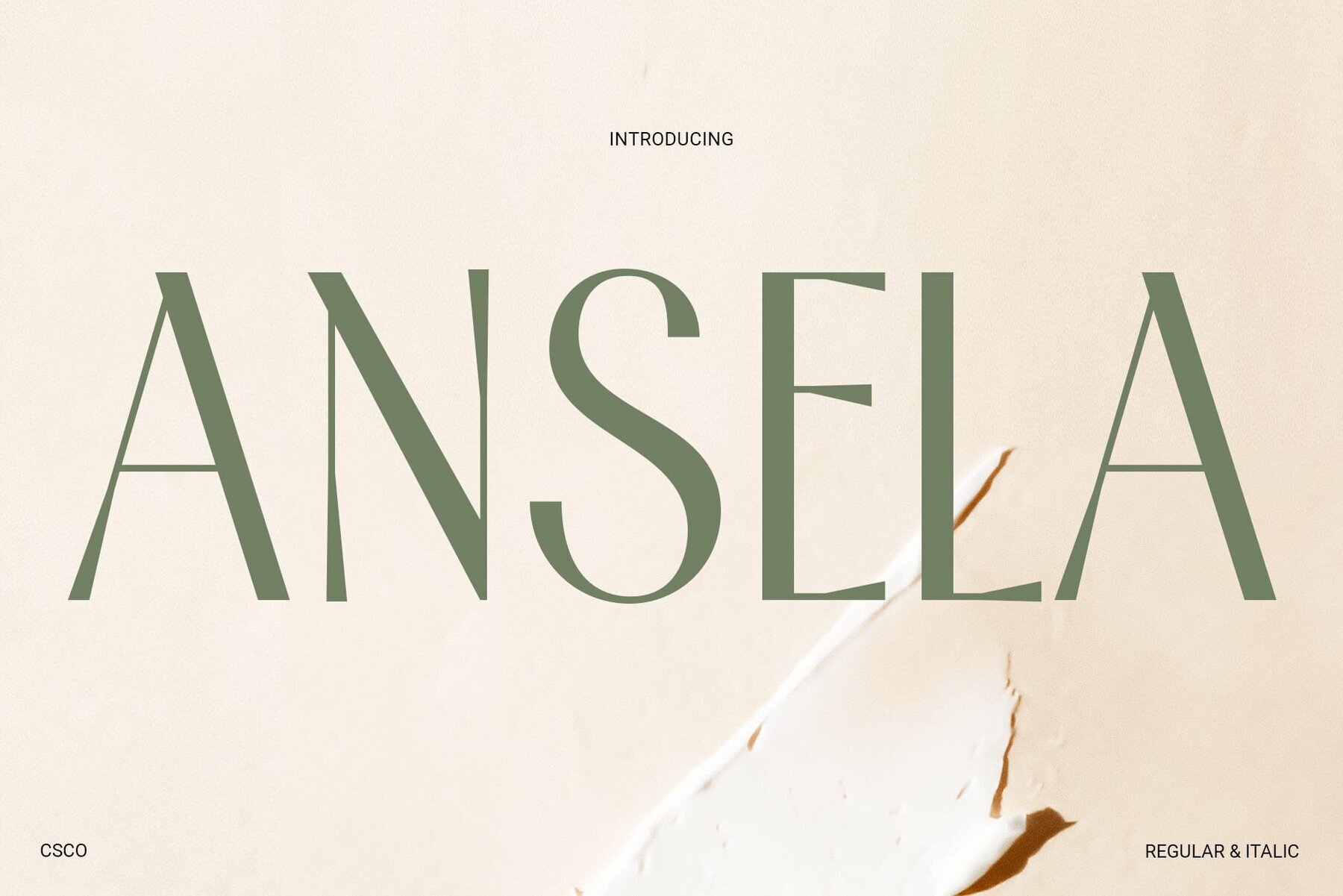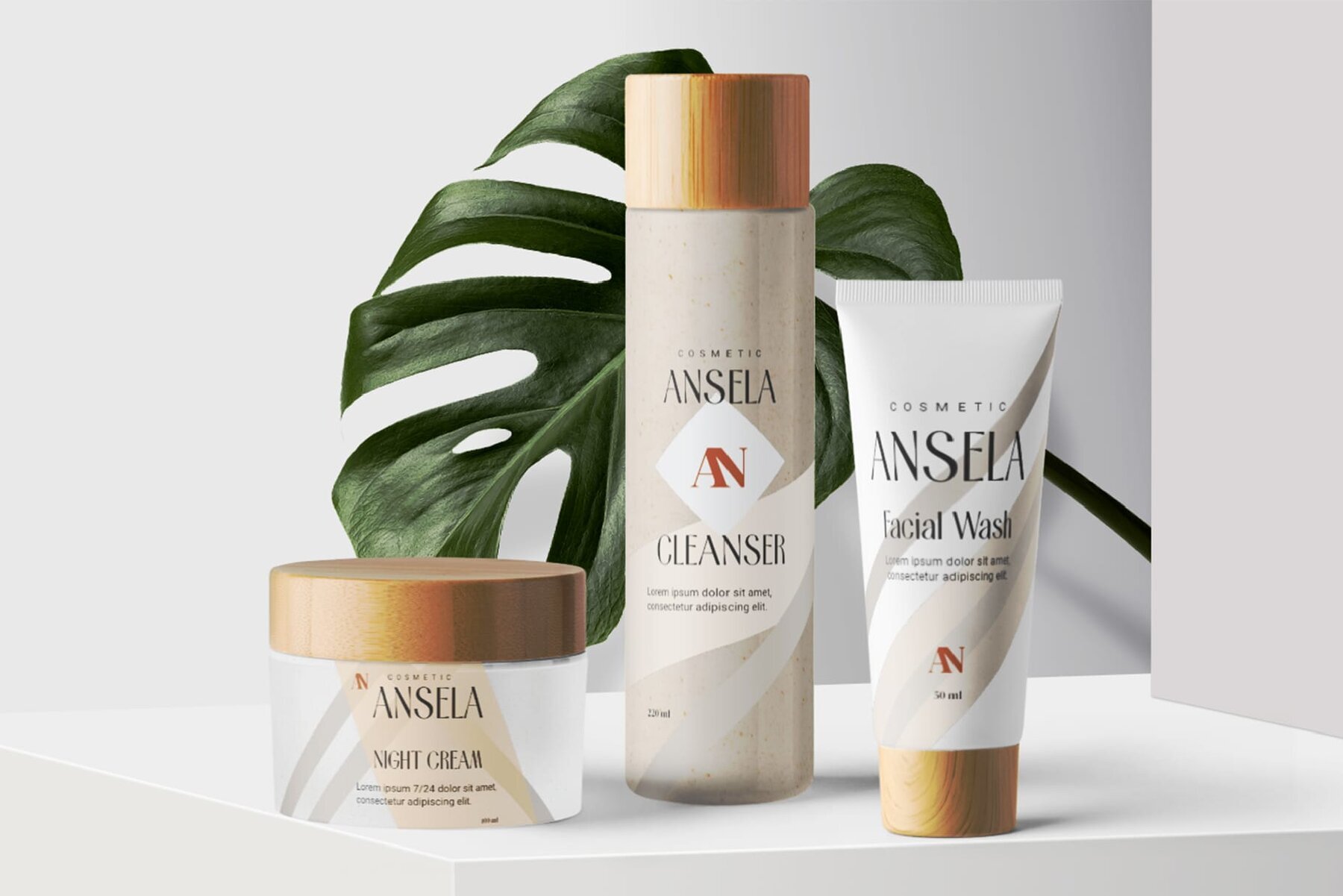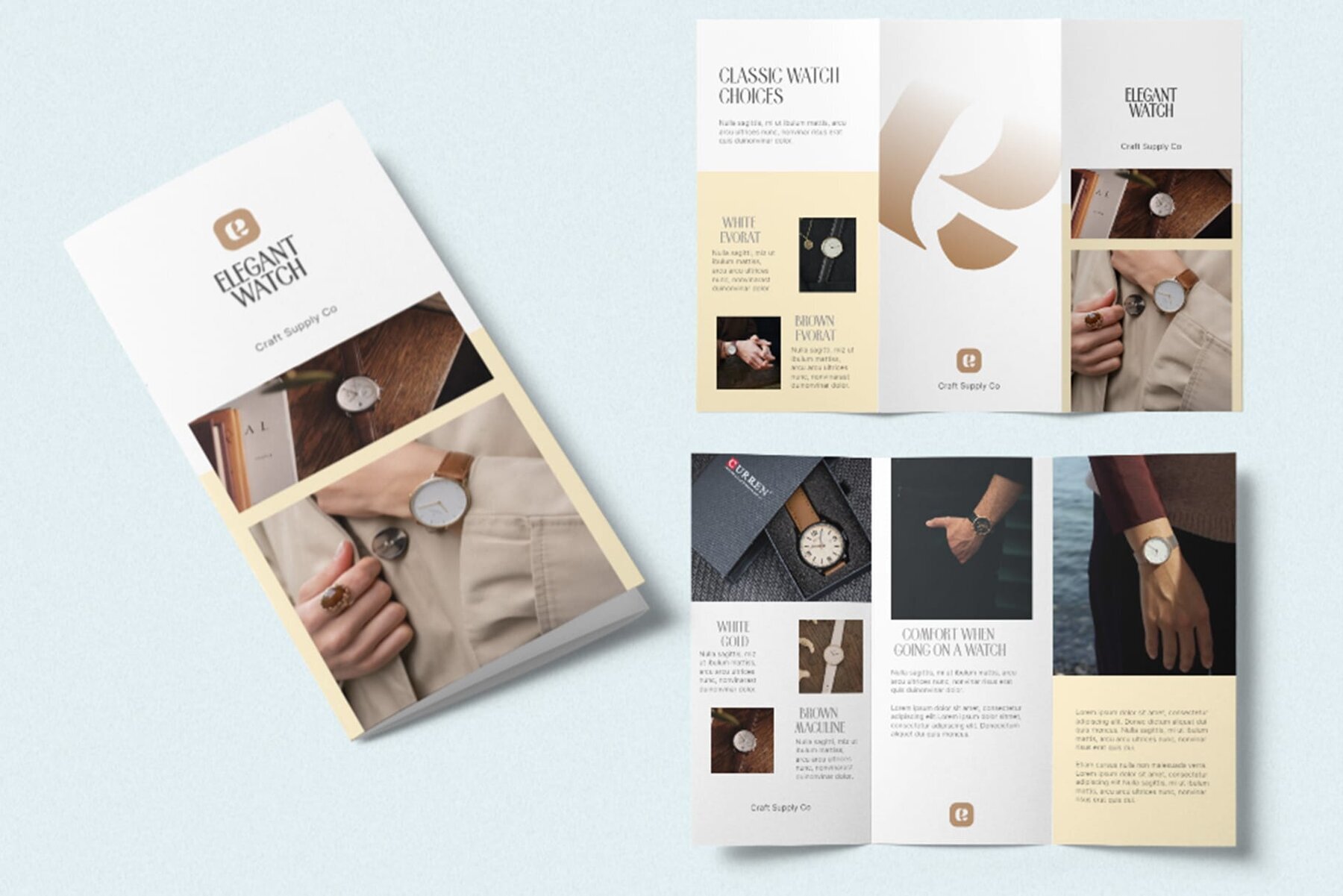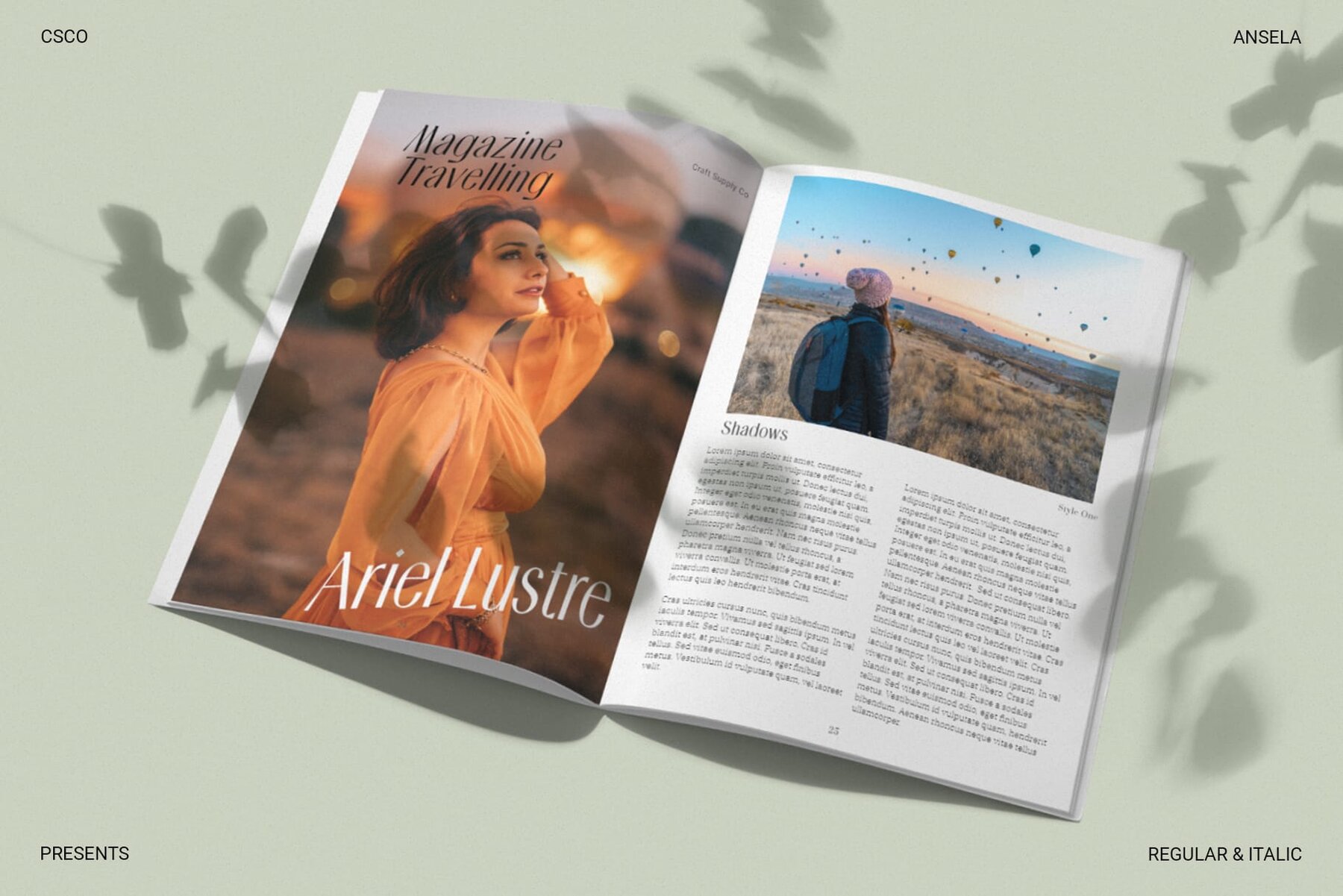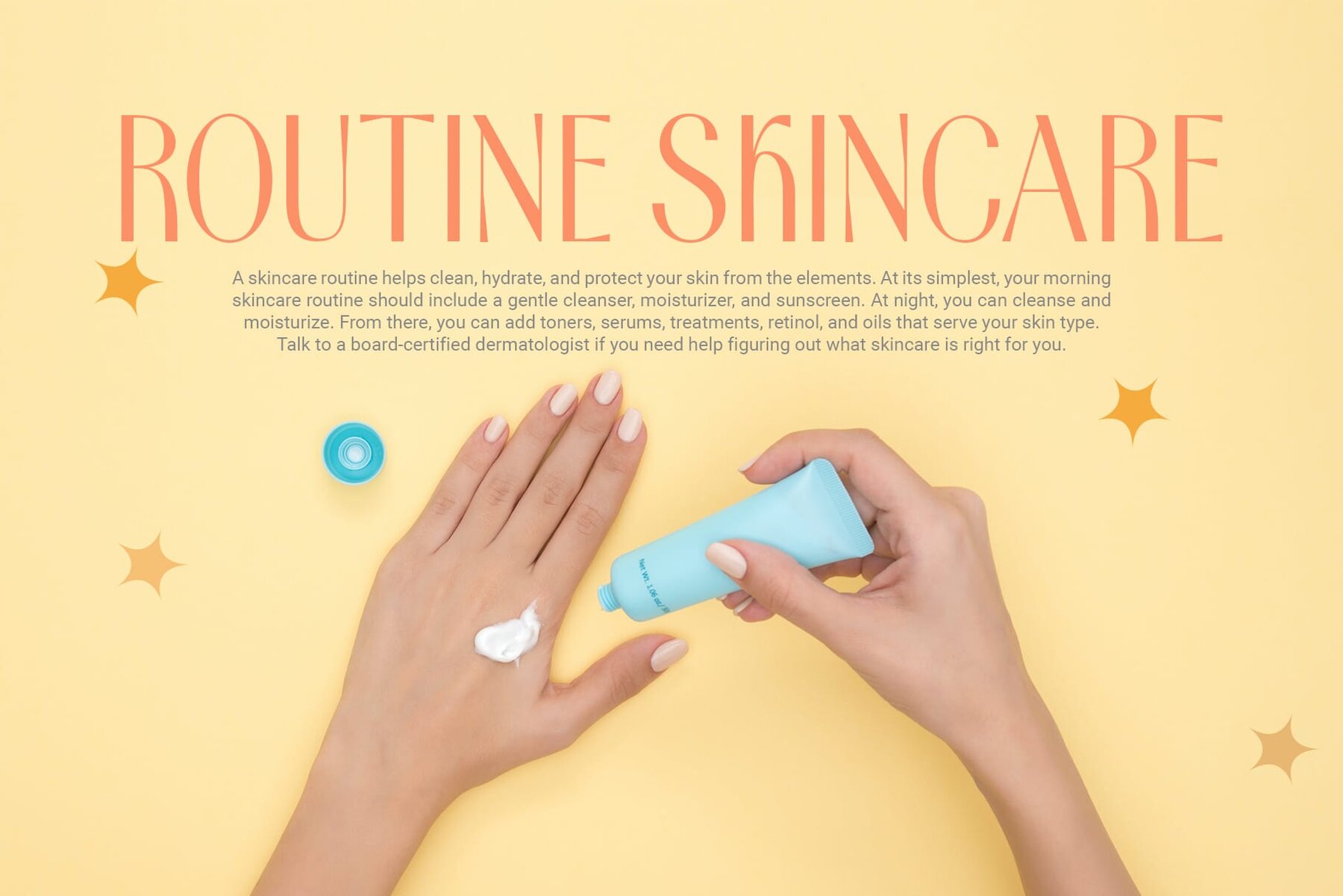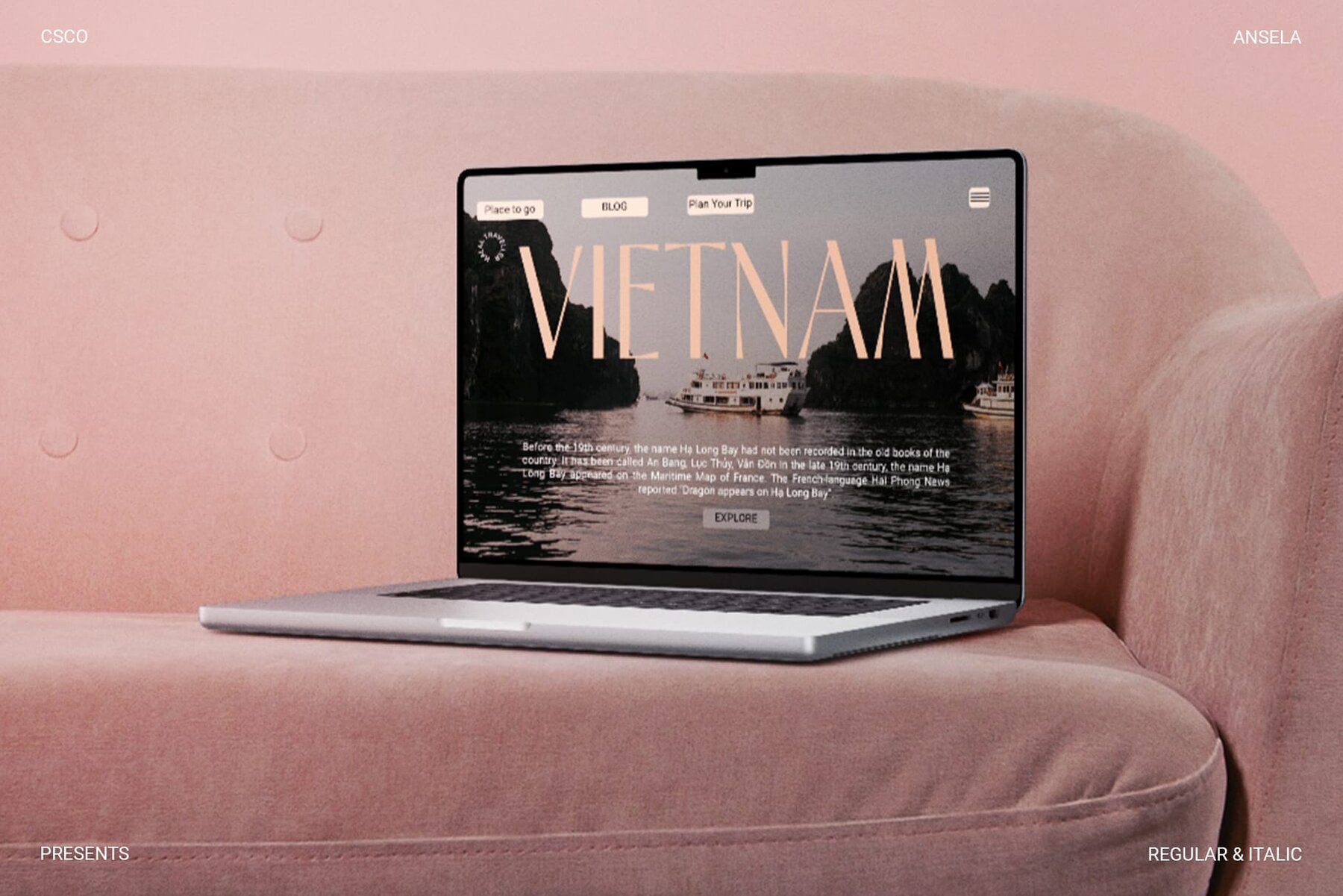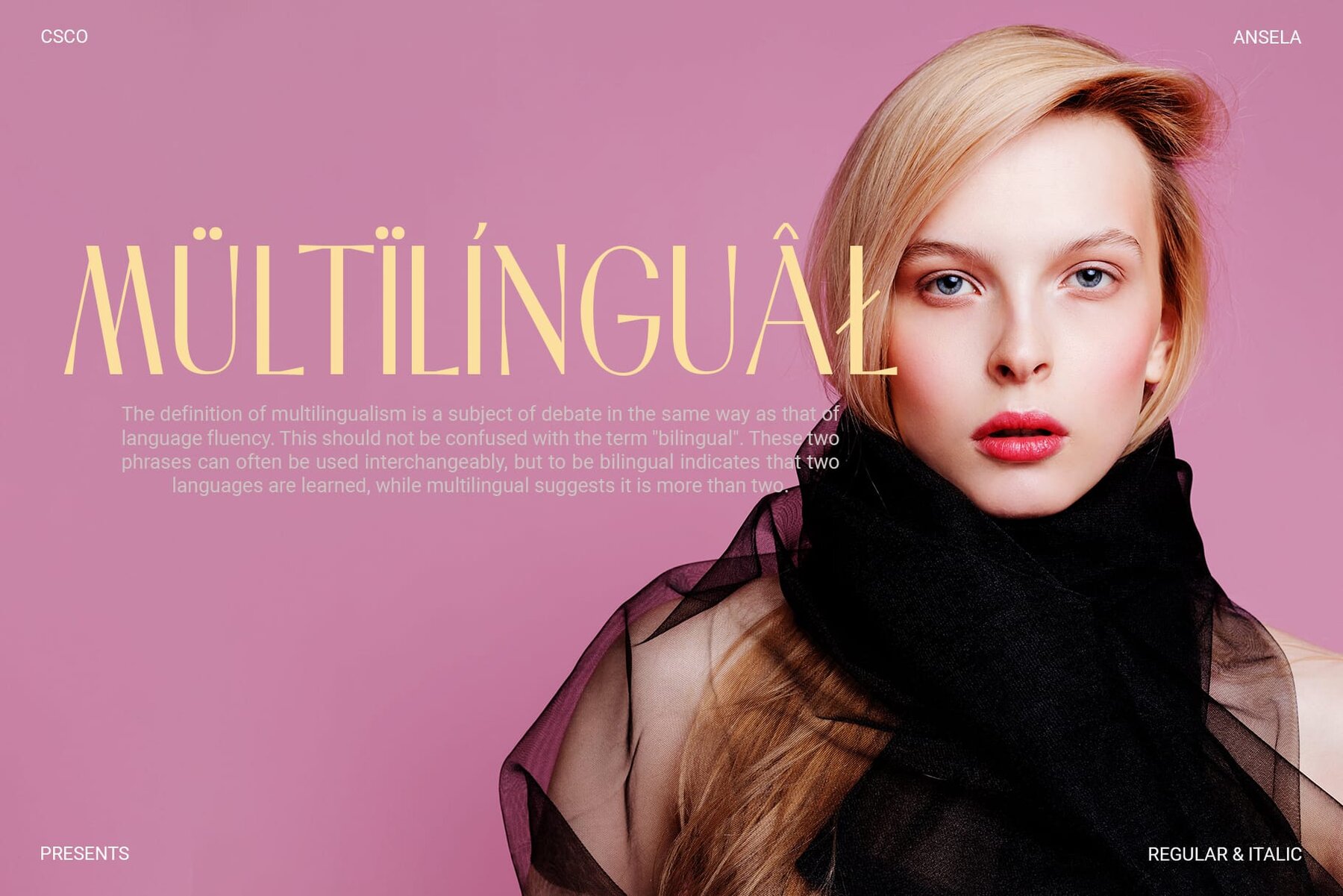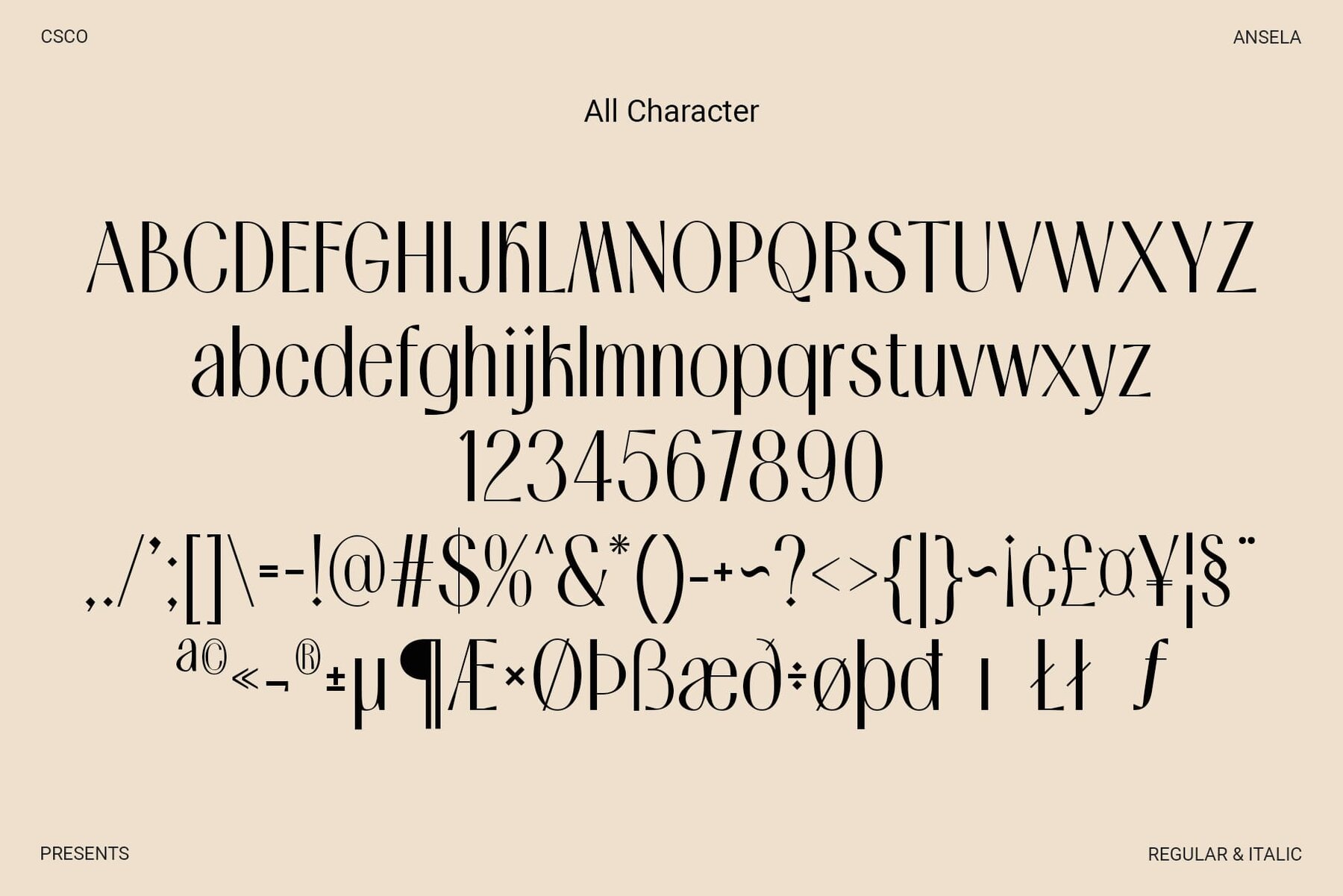
Ansela Font
Ansela combines sleek sophistication with minimalist design to create a sans serif font that exudes timeless elegance. Its clean lines and simple forms transform simplicity into a design marvel, making it perfect for those who appreciate the beauty of minimalism. The Ansela font embodies sleek aesthetics, blending modern sans serif style with a minimalist approach, providing a timeless, elegant choice for any project. It offers a contemporary twist to classic elegance, making it a standout option for diverse design needs. Whether for branding, editorial work, or digital applications, Ansela adapts seamlessly, elevating projects with its understated yet powerful presence. Its effortless refinement serves as the perfect companion for designers looking to balance modern aesthetics with timeless grace. The sophistication of Ansela enhances any creative endeavor, offering a subtle yet impactful solution to elevate your designs. Its versatility shines through in its ability to complement a wide range of projects with ease. Use this typeface effortlessly without specialized software. For any inquiries or assistance, feel free to contact us. We appreciate your support in enhancing your creative projects!Ansela: A Modern Elegance in Simplicity
Sleek Sophistication
Versatile Elegance
Effortless Refinement